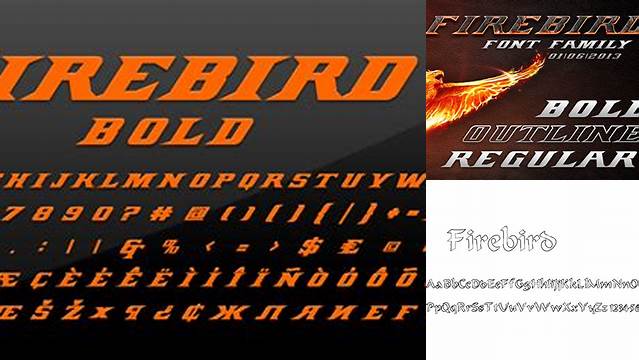
Let's dive into the world of the firebird font, guys! This font has a unique flair that can add a touch of elegance and personality to your designs. Whether you’re a seasoned designer or just starting, understanding where to find firebird font free download options and how to use them effectively is super valuable. So, let’s explore everything you need to know about this awesome typeface.
1. Understanding the Allure of Firebird Font
The firebird font isn't just another typeface; it's a statement. It brings a certain sophistication and artistic touch to any project it graces. Its unique design elements, often characterized by elegant curves and a dynamic presence, make it stand out. The firebird font can evoke a sense of classic beauty, modern innovation, or even a touch of whimsical charm, depending on how you use it. Whether it's for branding, web design, or print materials, this font can significantly enhance your visual communication. The key to truly appreciating the firebird font lies in recognizing its versatility and the impact it can have on your overall design. The firebird font truly shines when used thoughtfully, adding a distinctive flavor that complements the message you're trying to convey. Finding the right context and application is crucial to unlocking its full potential and making your projects truly memorable. From logos to posters, the options are endless, and the results can be stunning.
5. Utilizing Firebird Font in Graphic Design Projects
The firebird font can be a game-changer in your graphic design projects, guys! Its unique style can add a touch of elegance and sophistication to your work. When using the firebird font, consider the overall aesthetic you're trying to achieve. Is it a modern and sleek design or something more classic and vintage? The firebird font works well in logos, posters, website headers, and even social media graphics. Experiment with different sizes, weights, and colors to see what looks best. Don't be afraid to pair it with other fonts to create a visually appealing contrast. For example, you could use the firebird font for headlines and a simpler sans-serif font for body text. The key is to ensure that the firebird font complements the rest of your design elements and enhances the overall message. With a little creativity, you can transform your projects into stunning visual masterpieces. Remember to always consider readability and accessibility when incorporating any font into your designs.
6. Firebird Font for Logo Design
Using the firebird font for logo design can give your brand a distinctive and memorable identity. Because logos are so central to a brand, choosing the firebird font can communicate the essence of your brand, and sets the tone for how customers perceive you. Its elegant and unique style can help your logo stand out from the competition. When designing a logo with the firebird font, consider the overall brand message and target audience. A sophisticated and refined version of the firebird font can convey luxury and quality, while a more playful and whimsical version can appeal to a younger demographic. Experiment with different letter combinations and arrangements to create a unique and visually appealing logo. You can also incorporate graphical elements to further enhance the design. Just make sure the logo is scalable and legible at different sizes. A well-designed logo using the firebird font can become a powerful symbol of your brand.
7. Web Design Applications of Firebird Font
In web design, the firebird font can add a touch of personality and flair to your website. Using the firebird font in headings, banners, and call-to-action buttons can grab visitors' attention and create a visually engaging experience. However, it's important to use the firebird font sparingly and strategically to avoid overwhelming the user. Overuse can make your website look cluttered and unprofessional. A good rule of thumb is to use the firebird font for key elements and pair it with a more readable font for body text. This will ensure that your website is both visually appealing and easy to read. Also, consider the loading time of the firebird font. Some fonts can slow down your website, which can negatively impact user experience. Optimize the font files to ensure they load quickly. With careful planning and execution, the firebird font can elevate your web design and create a lasting impression on your visitors.
8. Print Design Projects with Firebird Font
For print design projects, the firebird font can be a real asset. Whether you're creating brochures, posters, invitations, or business cards, the firebird font can add a touch of elegance and sophistication to your designs. When using the firebird font in print, consider the paper stock and printing techniques. A high-quality paper stock will enhance the font's appearance and make your designs look more professional. You can also experiment with different printing techniques, such as embossing or letterpress, to add texture and dimension to your designs. Make sure the firebird font is legible at the printed size. Test prints are always a good idea to ensure that the font looks great in the final product. With careful attention to detail, you can create stunning print designs that showcase the beauty of the firebird font. Always double-check your printer settings to ensure the font renders correctly.
9. Pairing Firebird Font with Other Typefaces
Pairing the firebird font with other typefaces can create visually interesting and harmonious designs. The key is to choose fonts that complement each other without competing for attention. A general rule of thumb is to pair a decorative font like firebird font with a simpler, more neutral font for body text. This will ensure that your designs are both eye-catching and easy to read. For example, you could pair the firebird font with a classic sans-serif font like Arial or Helvetica, or a clean serif font like Times New Roman or Georgia. Experiment with different font combinations to see what works best for your specific project. Consider the overall tone and style of your design when choosing fonts. A modern and minimalist design might call for a different font pairing than a vintage and ornate design. Don't be afraid to try unexpected combinations, but always prioritize readability and visual balance. Understanding how different fonts interact with each other can greatly enhance the overall impact of your designs. This is key after you've secured your firebird font free download.
10. Exploring Similar Fonts to Firebird
If you're having trouble finding the exact firebird font free download you're looking for, don't worry! There are plenty of similar fonts that can capture the same essence and style. Fonts like "Great Vibes," "Dancing Script," and "Lobster" share the same elegant and flowing characteristics as the firebird font. These fonts can be great alternatives if you need a similar look and feel. When exploring similar fonts, consider the specific qualities that you like about the firebird font. Is it the elegant curves, the dynamic strokes, or the overall sophistication? Look for fonts that share these characteristics. You can also use online font identification tools to find fonts that are visually similar to the firebird font. Simply upload an image of the firebird font, and the tool will suggest similar fonts. This can be a great way to discover new and interesting typefaces that you might not have otherwise found. Remember to always check the licensing details before using any font in your projects. The firebird font and its alternatives offer a wide range of options for adding personality to your designs.
11. Licensing Considerations for Firebird Font
Understanding the licensing considerations for the firebird font is crucial, especially when you're using a firebird font free download. Font licenses dictate how you can use the font, whether it's for personal or commercial projects. Some fonts are free for personal use only, meaning you can use them for your own projects but not for anything that generates revenue. Other fonts have commercial licenses, which allow you to use them in commercial projects, such as logos, websites, and marketing materials. Always read the font license carefully before using the firebird font to ensure that you're complying with the terms. Using a font without the proper license can result in legal issues and fines. If you're unsure about the licensing terms, it's always best to contact the font designer or foundry for clarification. Investing in a commercial license can give you peace of mind knowing that you're covered for all your projects. Properly understanding and respecting font licenses is an essential part of being a responsible designer.
12. Optimizing Firebird Font for Web Use
Optimizing the firebird font for web use is essential to ensure that your website loads quickly and provides a good user experience. Large font files can slow down your website, which can negatively impact your search engine rankings and user engagement. To optimize the firebird font for web use, you can use font optimization tools to reduce the file size without sacrificing quality. These tools remove unnecessary characters and data from the font file, making it smaller and faster to load. You can also use web font formats like WOFF and WOFF2, which are specifically designed for web use. These formats compress the font data, making it even smaller. When embedding the firebird font on your website, use CSS to specify the font-display property. This property controls how the font is displayed while it's loading. Setting the font-display property to "swap" will ensure that the text is visible even before the font has fully loaded. Optimizing the firebird font for web use is a simple but effective way to improve your website's performance and user experience.
13. Using Firebird Font in Social Media Graphics
The firebird font can be a great addition to your social media graphics, helping you create eye-catching and engaging content. Its unique style can help your posts stand out from the crowd and capture the attention of your audience. When using the firebird font in social media graphics, consider the overall branding and aesthetic of your social media accounts. Use the firebird font consistently to create a cohesive and recognizable brand identity. Experiment with different sizes, colors, and placements to see what looks best. You can use the firebird font in headlines, captions, and watermarks. Make sure the font is legible at smaller sizes, especially on mobile devices. Pair the firebird font with other design elements, such as images, illustrations, and icons, to create visually appealing graphics. Use social media design tools like Canva or Adobe Spark to easily create stunning graphics with the firebird font. Remember to always optimize your graphics for social media by using the correct image sizes and file formats. With a little creativity, you can use the firebird font to create social media graphics that grab attention and drive engagement.
14. Firebird Font and Branding Consistency
Maintaining branding consistency with the firebird font is crucial for creating a strong and recognizable brand identity. Using the firebird font consistently across all your branding materials, from your logo and website to your marketing collateral and social media graphics, will help reinforce your brand message and create a cohesive visual identity. When choosing the firebird font for your brand, consider the overall tone and style of your brand. Does the firebird font align with your brand values and target audience? Make sure the firebird font is legible and scalable across different platforms and sizes. Create a brand style guide that outlines how to use the firebird font in different contexts. This will ensure that everyone who works on your brand is using the font correctly and consistently. Regularly review your branding materials to ensure that the firebird font is being used correctly and consistently. Branding consistency is key to building brand recognition and trust with your customers. The firebird font, when used strategically, can be a powerful tool in achieving this.
15. Creating Unique Designs with Firebird Font
Creating unique designs with the firebird font involves thinking outside the box and experimenting with different design techniques. Don't be afraid to break the rules and try something new. Use the firebird font in unexpected ways to create visually striking designs. For example, you could use the firebird font to create abstract patterns or textures. Or you could combine the firebird font with other design elements, such as illustrations, photographs, or geometric shapes, to create unique and layered designs. Experiment with different color combinations and typography treatments to see what works best. Use design software like Adobe Photoshop or Illustrator to manipulate the firebird font and create custom effects. Get inspired by other designers and artists, but don't be afraid to put your own spin on things. The key to creating unique designs with the firebird font is to be creative, innovative, and willing to take risks.
16. The History and Evolution of Firebird Font
Delving into the history and evolution of the firebird font can provide valuable insights into its design and usage. Understanding the origins of the firebird font can help you appreciate its unique characteristics and use it more effectively in your designs. Research the designer or foundry that created the firebird font and learn about their design philosophy and influences. Explore the different versions and styles of the firebird font and how they have evolved over time. Look for examples of how the firebird font has been used in different design projects throughout history. This can provide inspiration and help you understand the font's versatility and potential. By understanding the history and evolution of the firebird font, you can gain a deeper appreciation for its design and use it more effectively in your own work.
17. Firebird Font and Readability Considerations
Readability is a crucial factor to consider when using the firebird font in your designs. While the firebird font can add a touch of elegance and personality, it's important to ensure that your text is still easy to read. Choose a font size that is appropriate for the context and audience. Use sufficient line spacing and letter spacing to improve readability. Avoid using the firebird font for large blocks of text, as this can be tiring on the eyes. Instead, use it sparingly for headlines, subheadings, and other short pieces of text. Pair the firebird font with a more readable font for body text. Consider the color contrast between the text and the background. Make sure there is enough contrast to ensure that the text is legible. Test your designs on different devices and screen sizes to ensure that the text is readable in all contexts. Readability should always be a top priority when choosing and using fonts in your designs.
18. Firebird Font and Accessibility Standards
Adhering to accessibility standards is essential when using the firebird font in your designs, ensuring that your content is accessible to everyone, including people with disabilities. Choose a font size that is large enough to be easily read by people with visual impairments. Use sufficient color contrast between the text and the background to meet accessibility guidelines. Provide alternative text descriptions for images and other non-text elements. Use clear and concise language to make your content easier to understand. Structure your content logically using headings, subheadings, and lists. Use semantic HTML to ensure that your content is properly structured and accessible to assistive technologies. Test your designs with assistive technologies, such as screen readers, to ensure that they are accessible to people with disabilities. Accessibility should be a key consideration in all your design decisions.
19. Advanced Typography Techniques with Firebird Font
Exploring advanced typography techniques with the firebird font can elevate your designs and create visually stunning effects. Experiment with kerning and tracking to adjust the spacing between letters and words. Use ligatures to create more elegant and flowing letter combinations. Create custom letterforms or glyphs to add a unique touch to your designs. Use text effects, such as shadows, glows, and gradients, to add depth and dimension to your text. Experiment with different font weights and styles to create visual hierarchy and emphasis. Use typography as a design element to create patterns, textures, and abstract compositions. Push the boundaries of typography and explore new and innovative ways to use the firebird font in your designs. Advanced typography techniques can transform your designs from ordinary to extraordinary.
20. Firebird Font in Motion Graphics and Animation
Incorporating the firebird font into motion graphics and animation projects can add a touch of elegance and sophistication to your visuals. Animate the firebird font using software like Adobe After Effects to create dynamic and engaging text effects. Use kinetic typography techniques to bring your text to life and create visually stunning animations. Experiment with different animation styles, such as fade-ins, slide-ins, and rotations, to see what works best. Synchronize your text animations with music or sound effects to create a more immersive and engaging experience. Use the firebird font to create animated logos, titles, and lower thirds. Consider the timing and pacing of your animations to ensure that the text is easy to read and understand. Motion graphics and animation can be a powerful way to showcase the beauty and versatility of the firebird font.
21. Best Practices for Using Firebird Font in Headlines
Using the firebird font effectively in headlines requires careful consideration of readability, visual impact, and overall design harmony. Choose a font size that is large enough to be easily read, but not so large that it overwhelms the design. Use sufficient letter spacing and line height to improve readability. Pair the firebird font with a complementary font for body text. Consider the color contrast between the headline and the background. Use the firebird font sparingly to avoid overusing it. Focus on creating a clear and concise message that grabs the reader's attention. Experiment with different typography treatments, such as bolding, italicizing, or underlining, to emphasize key words or phrases. Headlines are a critical element of any design, and using the firebird font effectively can help you create headlines that are both visually appealing and highly effective.
22. Avoiding Common Mistakes with Firebird Font
Avoiding common mistakes when using the firebird font can help you create more professional and polished designs. One common mistake is using the firebird font too frequently, which can make your designs look cluttered and overwhelming. Another mistake is using the firebird font at a font size that is too small, which can make it difficult to read. Failing to consider the color contrast between the text and the background can also make your text difficult to read. Another common mistake is not using proper kerning and tracking, which can make your text look uneven and unprofessional. Avoid stretching or distorting the firebird font, as this can ruin its appearance. By avoiding these common mistakes, you can ensure that you're using the firebird font effectively and creating high-quality designs.
23. The Future of Firebird Font in Design Trends
The future of the firebird font in design trends looks promising, as designers continue to explore new and innovative ways to use this versatile typeface. As design trends evolve, the firebird font is likely to adapt and evolve as well, with new styles, weights, and variations emerging to meet the changing needs of designers. The firebird font is also likely to become more integrated with emerging technologies, such as virtual reality and augmented reality, creating new opportunities for designers to use typography in immersive and interactive experiences. As design becomes more personalized and customized, the firebird font is likely to play a key role in helping designers create unique and memorable brand identities. The future of the firebird font is bright, and it will continue to be a valuable tool for designers for years to come.
24. Firebird Font and Emotional Design
Leveraging the emotional impact of the firebird font is crucial for creating designs that resonate with your audience on a deeper level. Different fonts evoke different emotions, and the firebird font is no exception. Consider the emotions that you want to evoke in your audience and choose a version of the firebird font that aligns with those emotions. For example, a more elegant and refined version of the firebird font might evoke feelings of luxury and sophistication, while a more playful and whimsical version might evoke feelings of joy and excitement. Use color, imagery, and other design elements to reinforce the emotional impact of the firebird font. Understand how different fonts interact with each other and choose font pairings that enhance the overall emotional tone of your design. Emotional design is about creating designs that connect with your audience on a personal level, and the firebird font can be a powerful tool in achieving this.
25. Finding Inspiration for Firebird Font Usage
Finding inspiration for firebird font usage can spark creativity and help you discover new and innovative ways to use this versatile typeface. Explore online design galleries and showcases to see how other designers are using the firebird font in their work. Look for examples of the firebird font being used in different industries and contexts. Study the work of renowned typographers and designers to learn from their expertise. Attend design conferences and workshops to learn about the latest trends and techniques in typography. Experiment with different design styles and approaches to see what works best for you. Create a mood board or inspiration board to gather ideas and visual references. Don't be afraid to try new things and push the boundaries of your creativity. Inspiration can come from anywhere, so be open to new ideas and perspectives.
26. Firebird Font and Cultural Sensitivity
Practicing cultural sensitivity when using the firebird font is essential for ensuring that your designs are respectful and inclusive. Different fonts can have different cultural connotations, and it's important to be aware of these connotations when choosing fonts for your designs. Research the cultural history and significance of the firebird font to understand its potential impact on different audiences. Avoid using the firebird font in ways that could be offensive or disrespectful to certain cultures. Consider the cultural background of your target audience and choose fonts that are appropriate for their cultural context. Consult with cultural experts or sensitivity readers to get feedback on your designs. Cultural sensitivity is about being mindful and respectful of the diverse cultures and perspectives that exist in the world.
27. Creating Font Combinations with Firebird Font
Creating effective font combinations with the firebird font requires careful consideration of visual harmony, readability, and overall design balance. Choose fonts that complement the firebird font without competing for attention. A general rule of thumb is to pair a decorative font like the firebird font with a simpler, more neutral font for body text. Experiment with different font pairings to see what works best for your specific project. Consider the overall tone and style of your design when choosing fonts. A modern and minimalist design might call for a different font pairing than a vintage and ornate design. Use online font pairing tools to get suggestions for fonts that work well together. Pay attention to the font sizes, weights, and styles of the fonts you're using. Aim for a balance between contrast and harmony. Creating effective font combinations is an art and a science, and it requires practice and experimentation.
28. Resources for Learning More About Firebird Font
Finding reliable resources for learning more about the firebird font can help you expand your knowledge and skills as a designer. Explore online typography tutorials and courses to learn about the fundamentals of typography and font design. Read books and articles about typography and font history. Follow typography blogs and social media accounts to stay up-to-date on the latest trends and techniques. Join online design communities and forums to connect with other designers and share your knowledge. Experiment with different font combinations and typography treatments to learn by doing. Attend typography conferences and workshops to learn from industry experts. The more you learn about typography, the more effectively you'll be able to use the firebird font in your designs.
29. Firebird Font and User Interface Design
Integrating the firebird font into user interface (UI) design can enhance the visual appeal and user experience of your digital products. Use the firebird font sparingly for headlines, subheadings, and other key UI elements. Choose a font size that is appropriate for the screen size and resolution. Use sufficient line spacing and letter spacing to improve readability. Consider the color contrast between the text and the background. Ensure that the firebird font is legible and scalable across different devices and browsers. Use web font formats like WOFF and WOFF2 to optimize the firebird font for web use. Test your UI designs with real users to get feedback on the usability and aesthetics of the firebird font. UI design is all about creating user-friendly and visually appealing interfaces, and the firebird font can be a valuable tool in achieving this.
30. Showcasing Firebird Font in Your Portfolio
Showcasing your best work with the firebird font in your portfolio is essential for attracting new clients and showcasing your design skills. Choose your strongest and most visually appealing designs that feature the firebird font. Create high-quality images or mockups of your designs. Write a brief description of each project, highlighting the role of the firebird font and the design challenges you faced. Organize your portfolio in a clear and logical way. Make sure your portfolio is easy to navigate and view on different devices. Promote your portfolio on social media and design communities. Seek feedback from other designers and potential clients. Your portfolio is your most important marketing tool, so make sure it showcases your best work with the firebird font and demonstrates your design expertise.